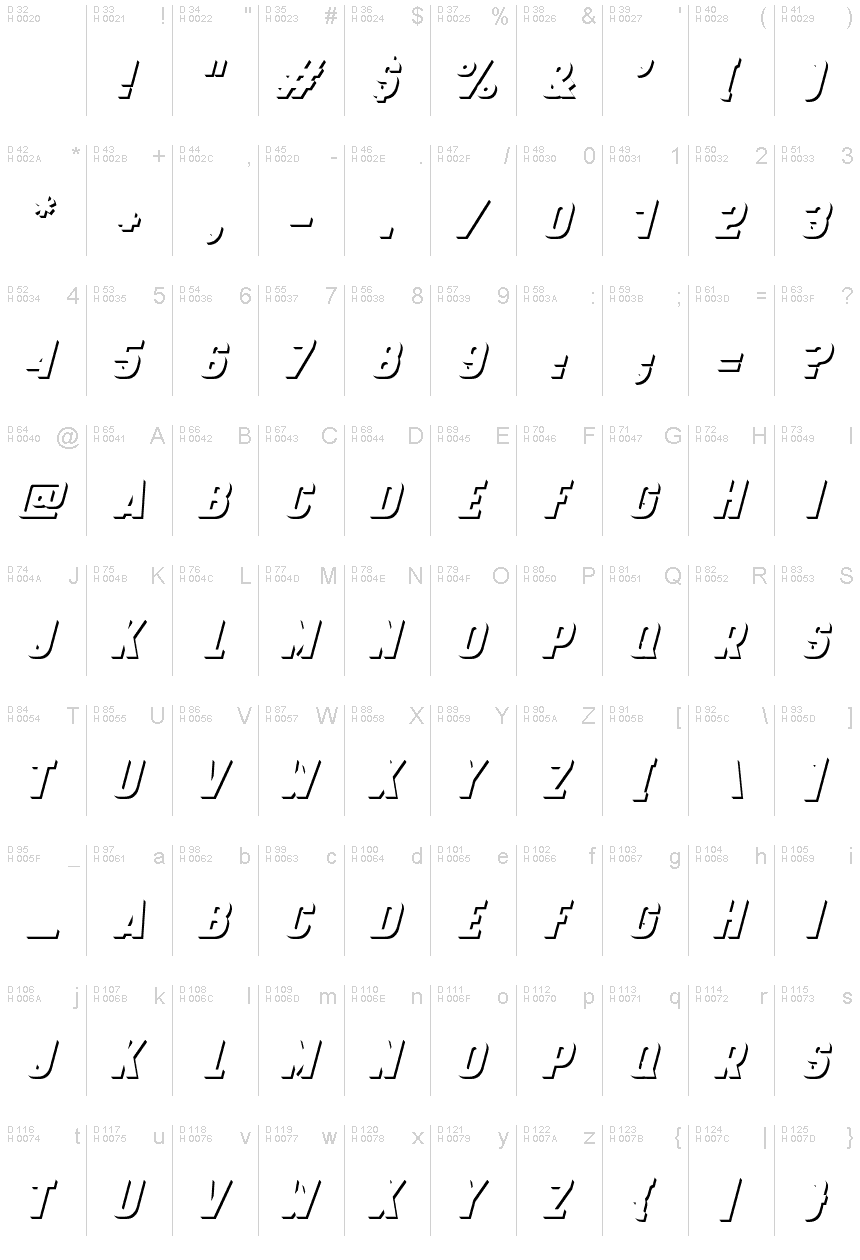
HyperSuperItalic3D
HyperSuper Italic 3D is a bold and condensed sans serif font from the HyperSuper font family, designed by Bisou. With its unique 3D style, this font adds depth and dimension to any project.
Its bold weight and condensed width make it suitable for eye-catching headers, logos, and titles in various design projects. Whether you're creating futuristic technology brochures or modern magazine layouts, HyperSuper Italic 3D will elevate your designs with its edgy and contemporary look.